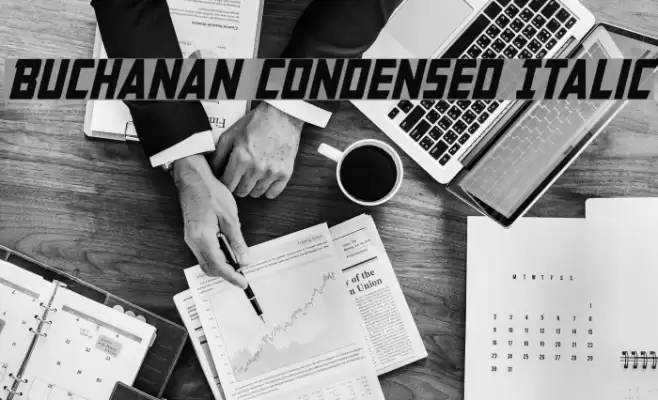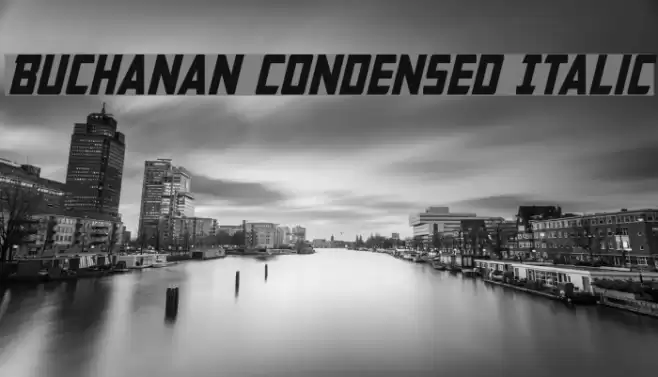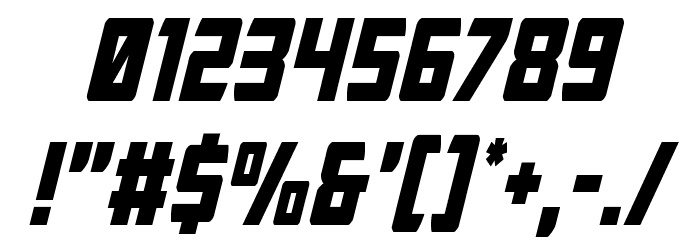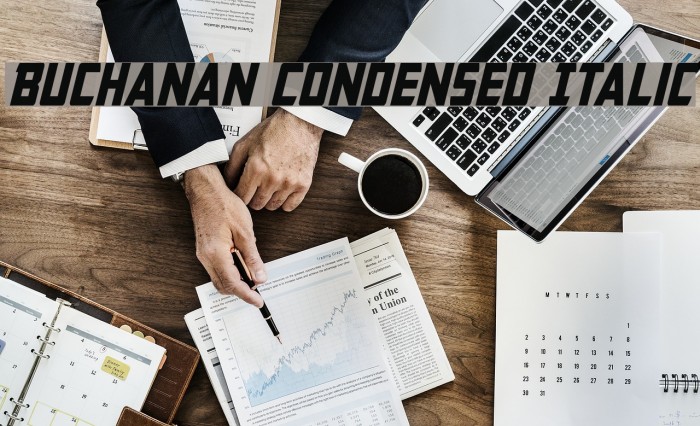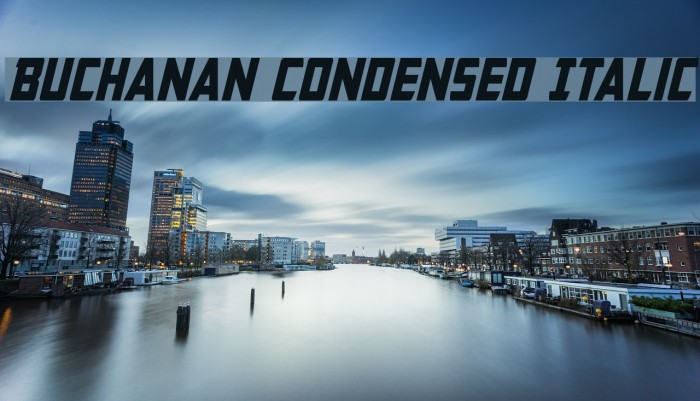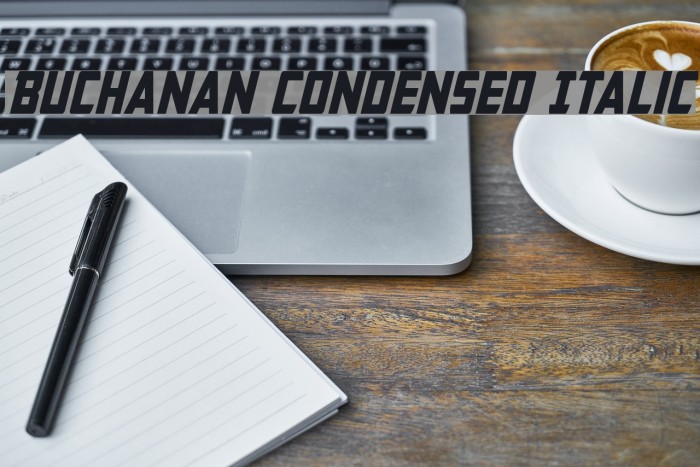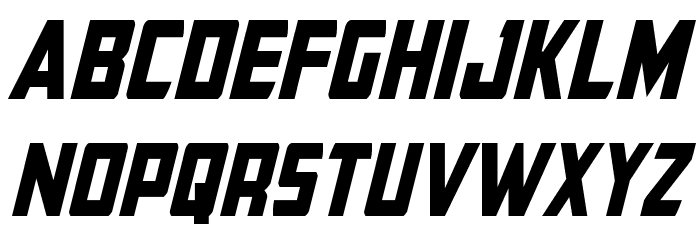
Buchanan Condensed Italic Font
Buchanan Condensed Italic Description
This font features a bold and dynamic style with a condensed and italicized form. The characters are sharply angled, giving a sense of motion and energy. The uppercase and lowercase letters maintain a consistent height, contributing to a uniform appearance. The numbers are similarly styled, ensuring cohesion across all elements. Special characters are included, matching the overall bold and slanted aesthetic. The design is modern and impactful, suitable for making a strong visual statement.
A bold, condensed, and italicized font with a dynamic and modern style from Uncategorized fonts.
- Proposed Projects: Ideal for sports branding, dynamic posters, and impactful headlines.